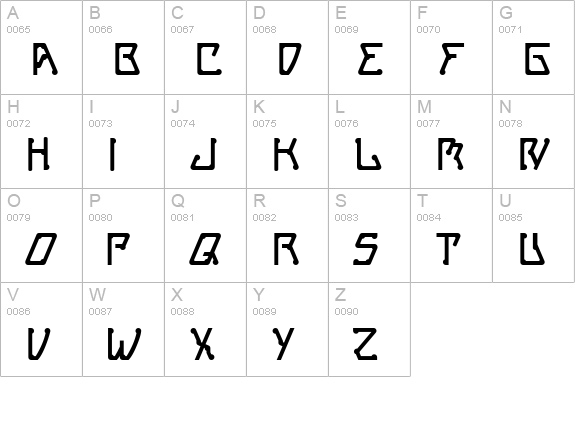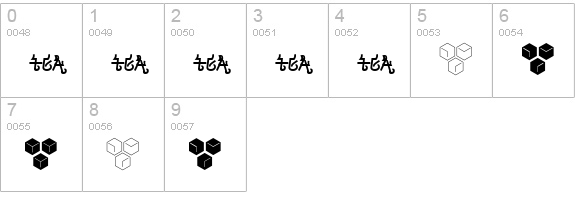
MetroPass font is a modern and sleek typeface that exudes a sense of sophistication and elegance. With its clean lines and sharp edges, this font is perfect for creating professional and eye-catching designs. Whether you are designing a sleek corporate logo or a stylish magazine layout, MetroPass font is sure to make your work stand out. What's even better is that MetroPass font is freely available to download at FontsMarket.com. You can easily access this versatile font and use it in your projects without any cost. Its versatility and timeless appeal make MetroPass font a must-have in any designer's toolkit. Elevate your designs with MetroPass font and see the difference it can make in your creative work.